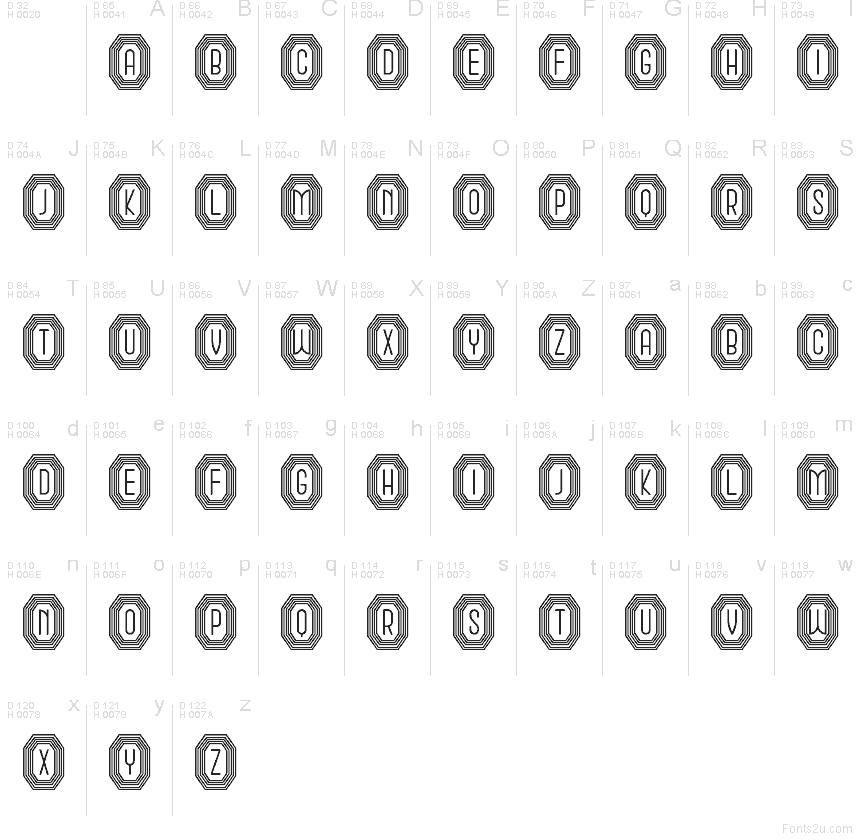
Capitalismo 12 Extravagant Regular
Capitalismo 12 Extravagant font by Vladimir Nikolic is a free decorative display typeface that turns every letter into its own ornate token. Octagonal frames, stacked ink lines, and narrow, upright forms give it the feel of vintage banknotes, casino chips, or old stock certificates. It has a crisp, engraved quality that reads like currency for the eye—attention‑grabbing, rhythmic, and unmistakably bold at larger sizes.
Using Capitalismo 12 Extravagant, you can brand anything that needs a money, gaming, or high‑stakes flair: casino posters, board‑game titles, escape‑room graphics, themed event flyers, packaging, or bold logotypes. This free font works beautifully for wordmarks and short headlines where you want a strong, decorative border baked in. Pair it with a clean geometric sans in smaller text and keep plenty of spacing so those layered octagonal frames can breathe.